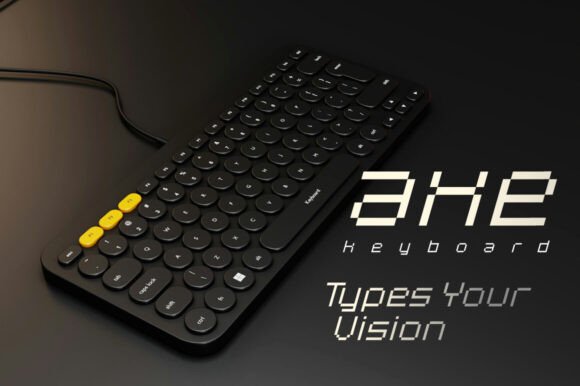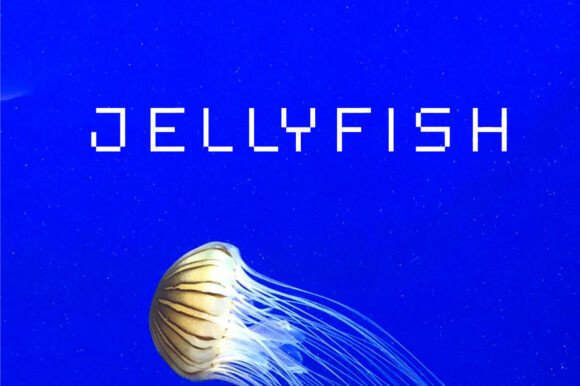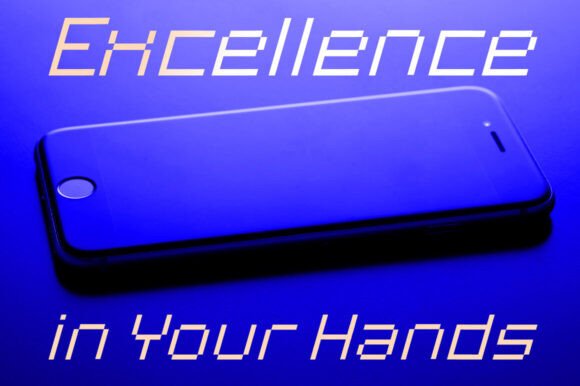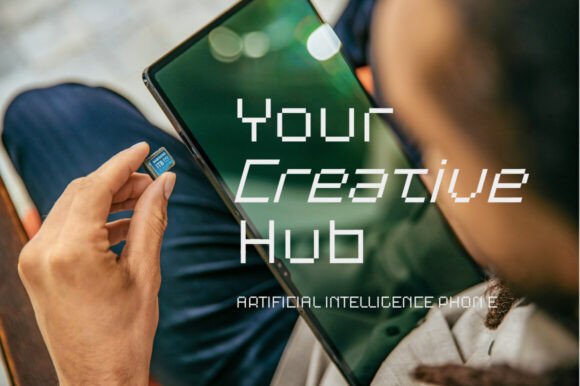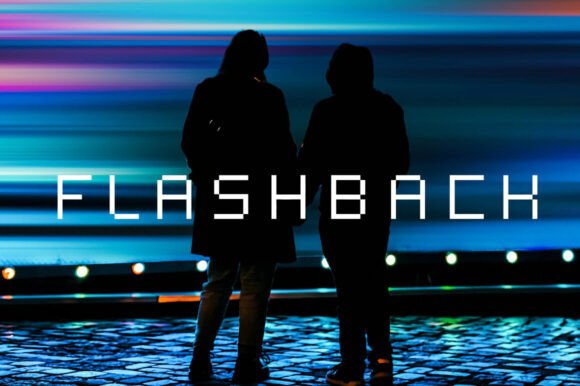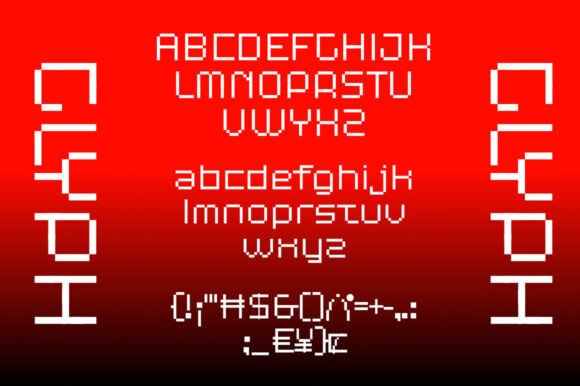
Unlocking the Power of FF Path Spect Font: Elevate Your Designs with Style and Readability
In the realm of digital design, the right font can make all the difference. It’s not just about aesthetics; it’s about conveying your message effectively and making a lasting impression. For designers and crafters looking for a font that seamlessly blends style with readability, FF Path Spect is an excellent choice. This article will delve into the world of FF Path Spect, exploring its features, benefits, and how it can elevate your tech-inspired designs, sleek branding, or bold headlines.
What is FF Path Spect Font?
FF Path Spect is a modern, sans-serif font designed to meet the demands of digital platforms. Its sleek lines and futuristic vibe make it an ideal choice for projects that require a touch of sophistication and innovation. Whether you’re working on a tech startup’s branding, a futuristic website, or eye-catching social media graphics, FF Path Spect offers the perfect blend of style and functionality.
Key Features of FF Path Spect
• Clean and Modern Design: FF Path Spect boasts a clean and modern design that instantly elevates your visuals. Its sleek lines and geometric shapes give it a futuristic feel that’s perfect for tech-inspired projects.
• High Readability: One of the standout features of FF Path Spect is its exceptional readability. Even at smaller sizes, it remains clear and legible, ensuring your message is communicated effectively across various platforms.
• Versatility: This font is incredibly versatile, suitable for a wide range of applications from digital interfaces to print materials. Whether you’re designing a logo, website, or brochure, FF Path Spect adapts seamlessly.
• Pixel-Perfect: FF Path Spect is designed with digital use in mind, making every pixel count. It’s perfect for high-resolution displays and ensures your designs look sharp and professional.
Benefits of Using FF Path Spect
Choosing FF Path Spect for your design projects comes with numerous benefits:
• Enhanced Visual Appeal: With its sleek and modern aesthetic, FF Path Spect instantly enhances the visual appeal of your designs, making them more engaging and professional.
• Improved Communication: The font’s high readability ensures that your message is communicated clearly and effectively, reducing the risk of misinterpretation.
• Time-Saving: Given its versatility and suitability for various projects, FF Path Spect can save you time in selecting and switching between different fonts.
• Consistency: Using a consistent font across your projects helps in building a strong brand identity. FF Path Spect can be a valuable asset in achieving this consistency.
How to Use FF Path Spect in Your Designs
Incorporating FF Path Spect into your workflow is straightforward:
2. Choose the Right Weight: FF Path Spect comes in various weights. Choose the one that best suits your design needs, from light for subtle headings to bold for impactful statements.
3. Experiment with Sizes: While FF Path Spect maintains readability at small sizes, experimenting with different sizes can help you find the perfect balance between style and legibility for your project.
4. Pair with Complementary Fonts: For added versatility, consider pairing FF Path Spect with complementary fonts for body text or other design elements. This can add depth and interest to your designs.
Font Name Ff Path Spect Font
Author ffeeaarr
FF Path Spect is more than just a font; it’s a design tool that can elevate your tech-inspired designs, sleek branding, or bold headlines. Its blend of style, readability, and versatility makes it an invaluable asset for designers and crafters looking to make a lasting impression. By incorporating FF Path Spect into your workflow, you’re not just choosing a font; you’re choosing a partner that helps your visuals shine with precision and style. Make every pixel count with FF Path Spect and discover a new dimension of design possibilities.